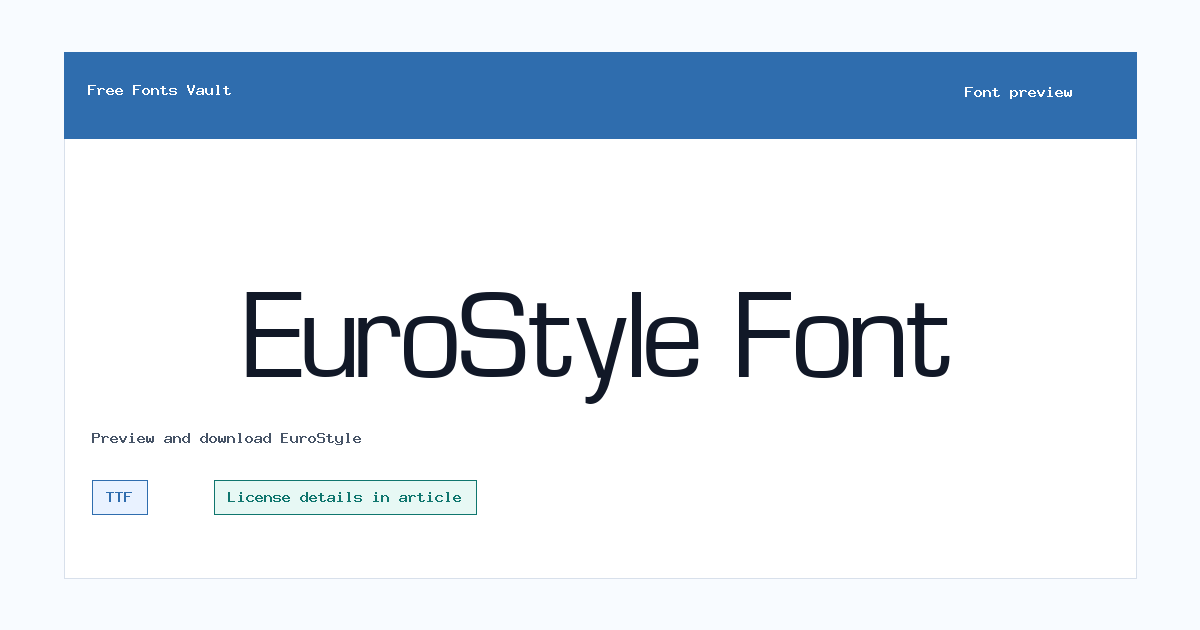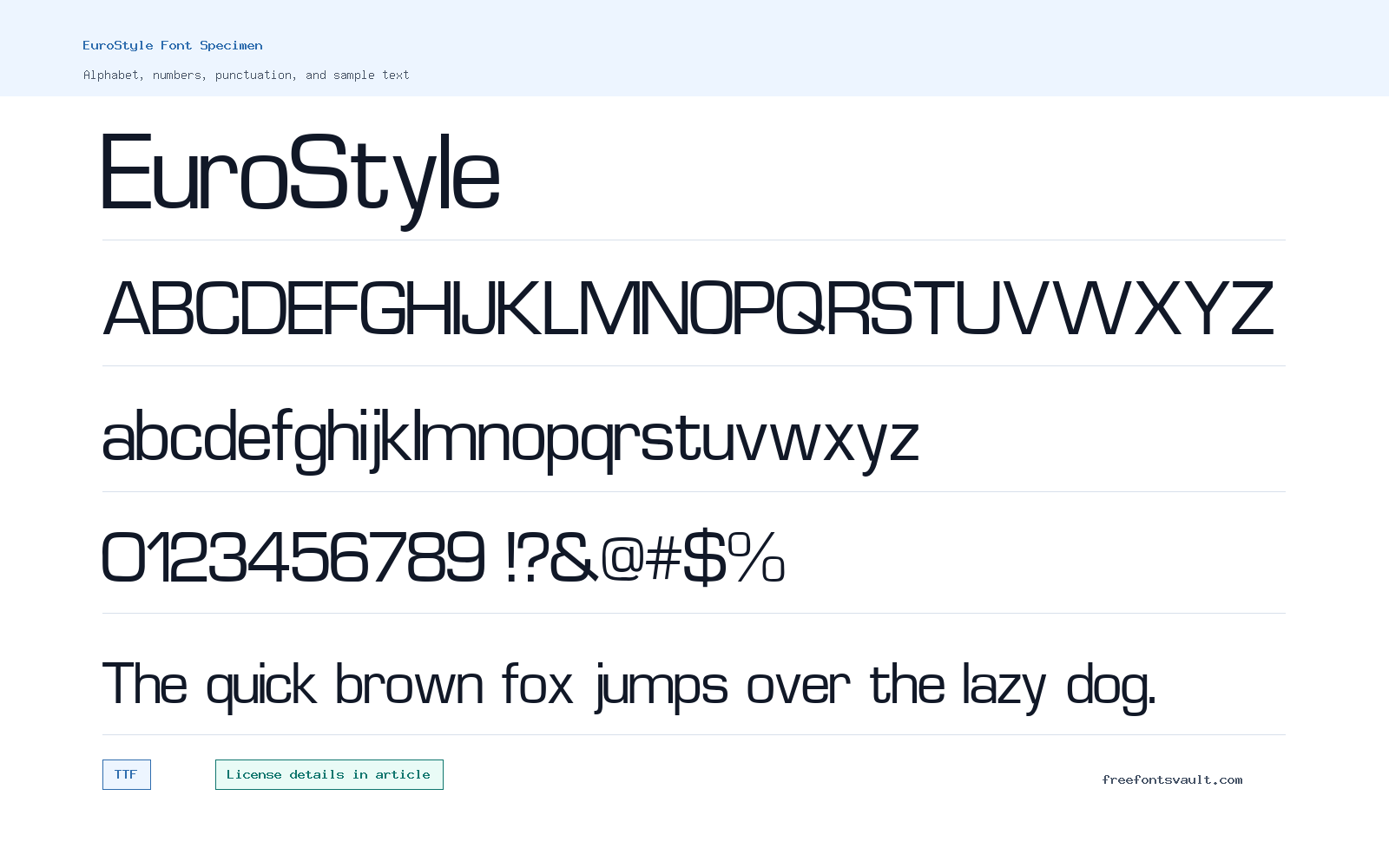
EuroStyle
EuroStyle is a squared, technical sans serif with a compact display feel. It works best when you need short text to look clean, mechanical, and a little retro-futuristic.
About EuroStyle Font
EuroStyle Normal is a TrueType font credited to Alex Bokov in multiple font directories. Its letterforms have a structured, Euro-style sans look, with firm shapes that suit titles, labels, interface mockups, digital posters, and other places where the wording is short and direct. The style can give headings a tech or sci-fi tone without needing heavy decoration.
Use EuroStyle for display text rather than long reading. It is a good choice for uppercase titles, short product-style labels, event graphics, menu concepts, badges, and compact web mockups. In paragraph text, the squared construction can feel tight, so test it in the preview at the exact size you plan to use. It pairs best with a calmer body font, such as a neutral sans serif, so the design does not become too sharp or crowded.
• Squared technical sans serif look for compact display typography
• Useful for short headlines, labels, UI concepts, posters, and tech-themed graphics
• Tech headlines and digital poster titles
• Retro-futuristic graphics and sci-fi themed layouts
• UI mockups, menu concepts, and dashboard labels
• Badges, stickers, short captions, and compact display text
• Projects that need a squared sans serif accent font
For the best result, preview EuroStyle in the exact words you plan to use. Try all caps for a stronger technical look, add letter spacing only if the text feels crowded, and avoid using it for long paragraphs. Pair it with a simple readable sans serif for body copy.
What kind of font is EuroStyle?
EuroStyle is a squared technical sans serif font. It is best used for short display text such as headlines, labels, UI mockups, and retro-futuristic designs.
Is EuroStyle the same as Eurostile?
No. This EuroStyle Normal font is credited to Alex Bokov by multiple font directories. Do not confuse it with the well-known commercial Eurostile typeface family.
Is EuroStyle good for body text?
It is better for short display text. For long reading, choose a more neutral text font and use EuroStyle as an accent.